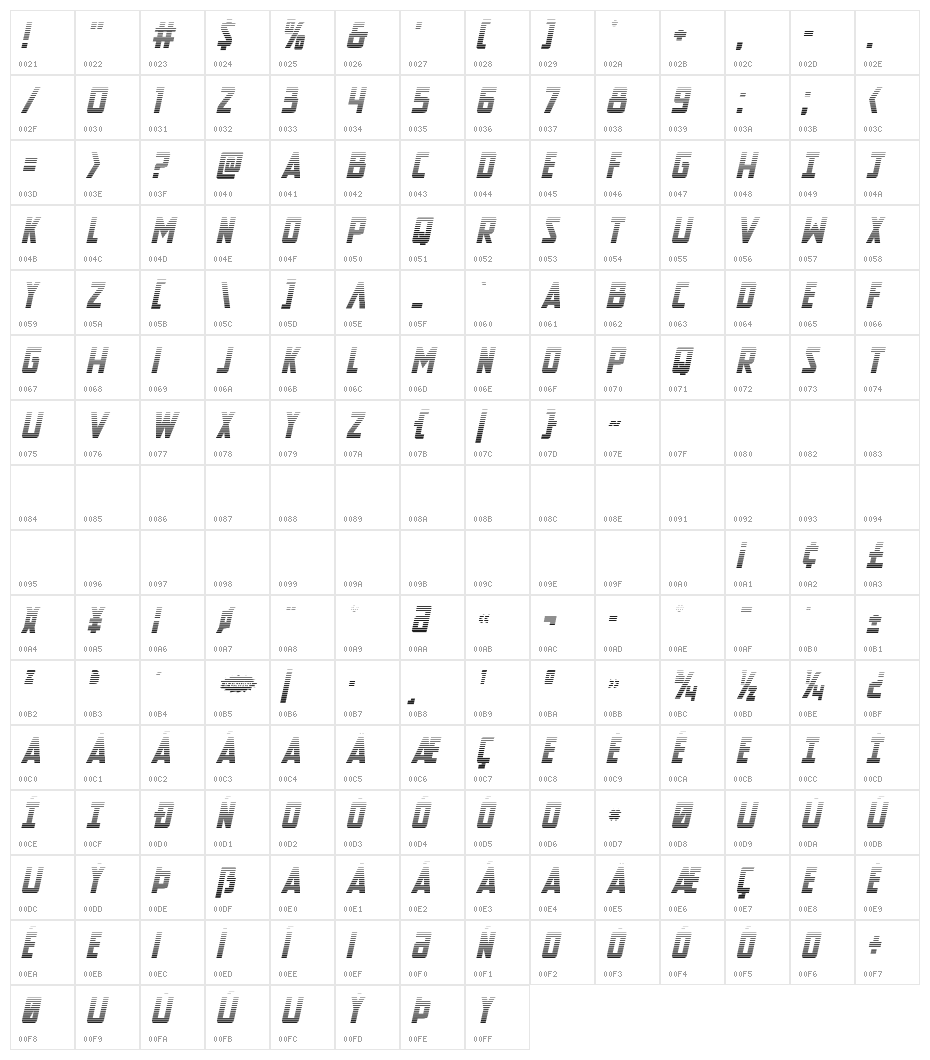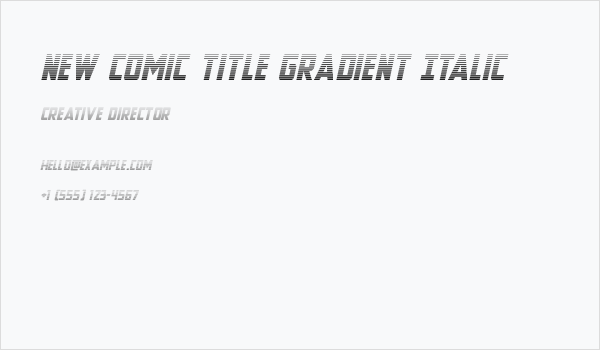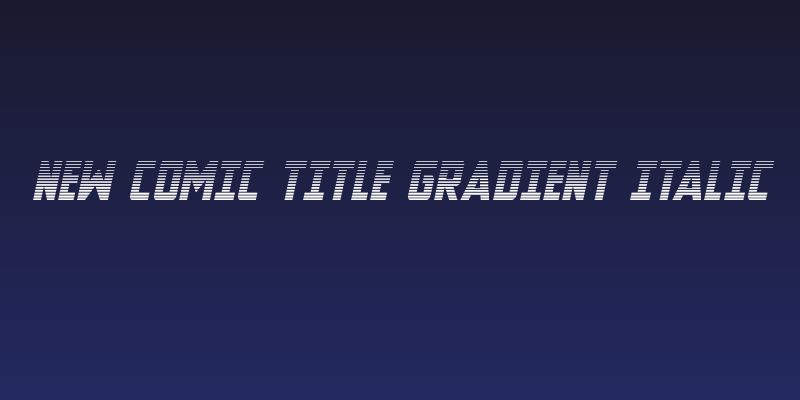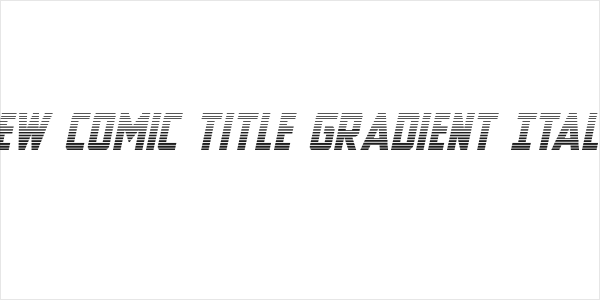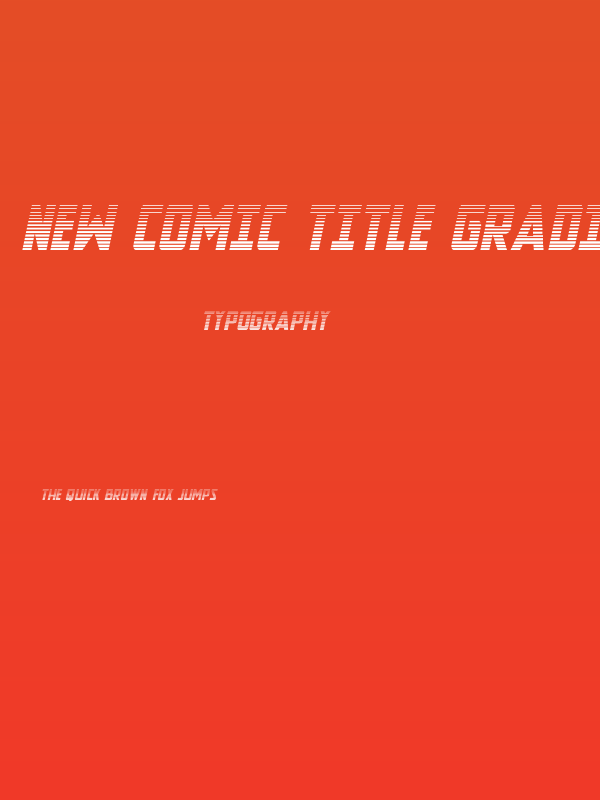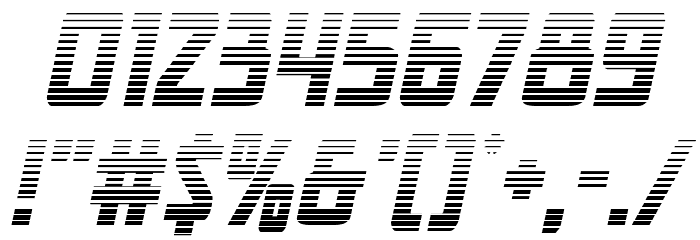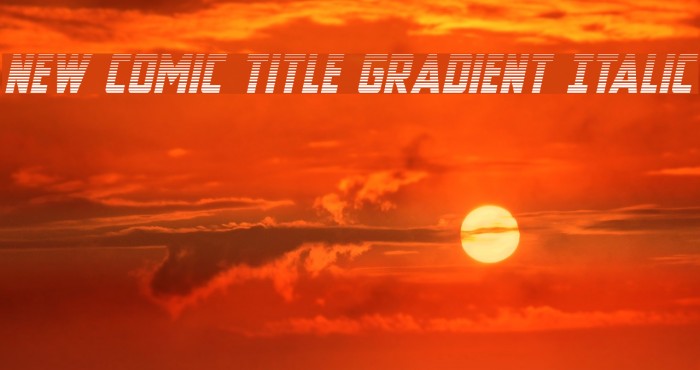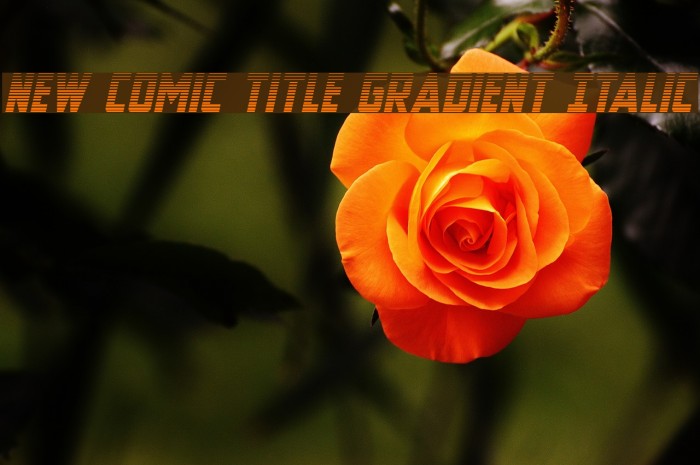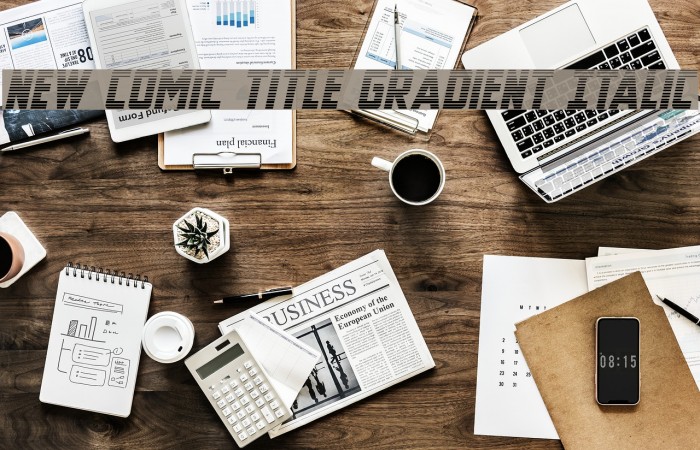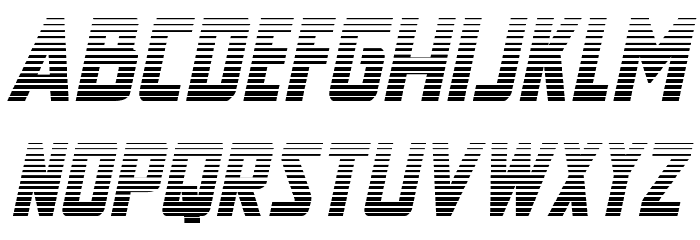
New Comic Title Gradient Italic Font
This font features a bold, italicized style with a distinct gradient effect created by horizontal lines that give it a dynamic, futuristic appearance. The characters are uppercase and numerals, with a consistent slant that adds a sense of motion. The design is highly stylized, making it suitable for attention-grabbing headlines or titles. The spacing between characters is tight, enhancing the compact and cohesive look. The font's unique aesthetic is ideal for projects that require a modern and edgy feel.
| Proposed Projects | Ideal for comic book titles, futuristic posters, video game covers, and dynamic branding. |